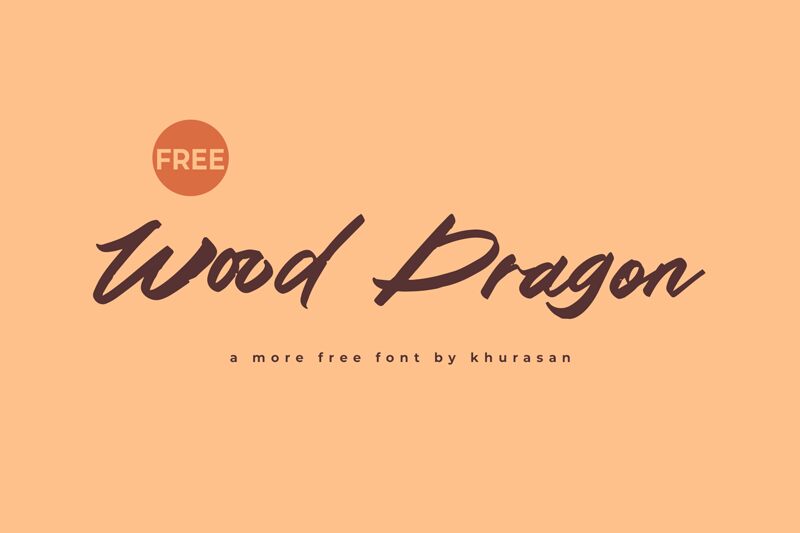
Wood Dragon
Wood Dragon, a semi-light brush font meticulously crafted by Khurasan, exudes a dynamic blend of contemporary flair and artistic elegance. Its flowing, hand-brushed strokes convey a sense of energy and natural charm that is both striking and harmonious. With its distinct personality, Wood Dragon commands attention while remaining legible, making it an excellent choice for designers seeking to inject character into their work.
The aesthetic appeal of Wood Dragon lies in its balance between expressive artistry and thoughtful composition. Each letter showcases the designer's attention to detail with varying widths and deliberate imperfections that mimic authentic brushwork. This makes the font ideally suited for projects that require a touch of organic sophistication — from eye-catching marketing materials and compelling social media graphics to unique branding elements and creative editorial designs.
Wood Dragon's versatility extends beyond its visual style; it has the potential to bring warmth and individuality to various creative contexts while maintaining readability. Whether you're crafting an evocative headline or elevating the aesthetic of a personal project, Wood Dragon stands ready to breathe life into your vision with its distinctive charm.